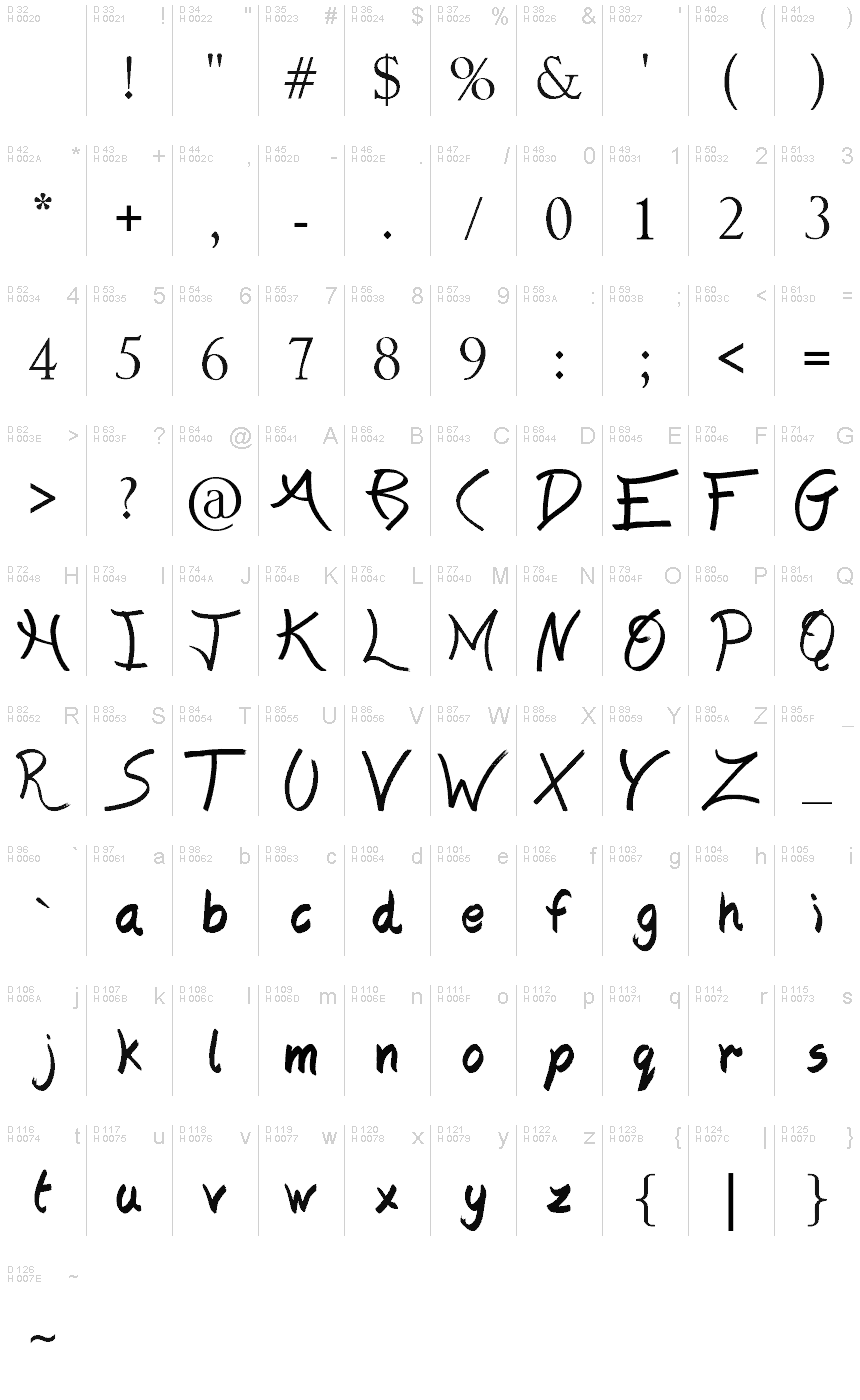
The Blue Oasis
The Blue Oasis, designed by TattooWoo.com, is a handwritten font with a semi-light weight that exudes charm and personality. Its strokes are reminiscent of the fluidity and casual grace found in personal script, making it an excellent choice for designs requiring a touch of intimacy and individuality. The uneven character width and playful irregularities provide a human touch that digital fonts often lack.
With its semi-light weight, The Blue Oasis maintains readability while offering an airy, unburdened aesthetic. This delicate balance makes it versatile for both print and digital mediums. It's particularly suitable for projects needing an informal yet sophisticated vibe such as boutique branding, wedding invitations, or creative editorial layouts.
Embrace the whimsical elegance of The Blue Oasis to breathe life into your next design venture.